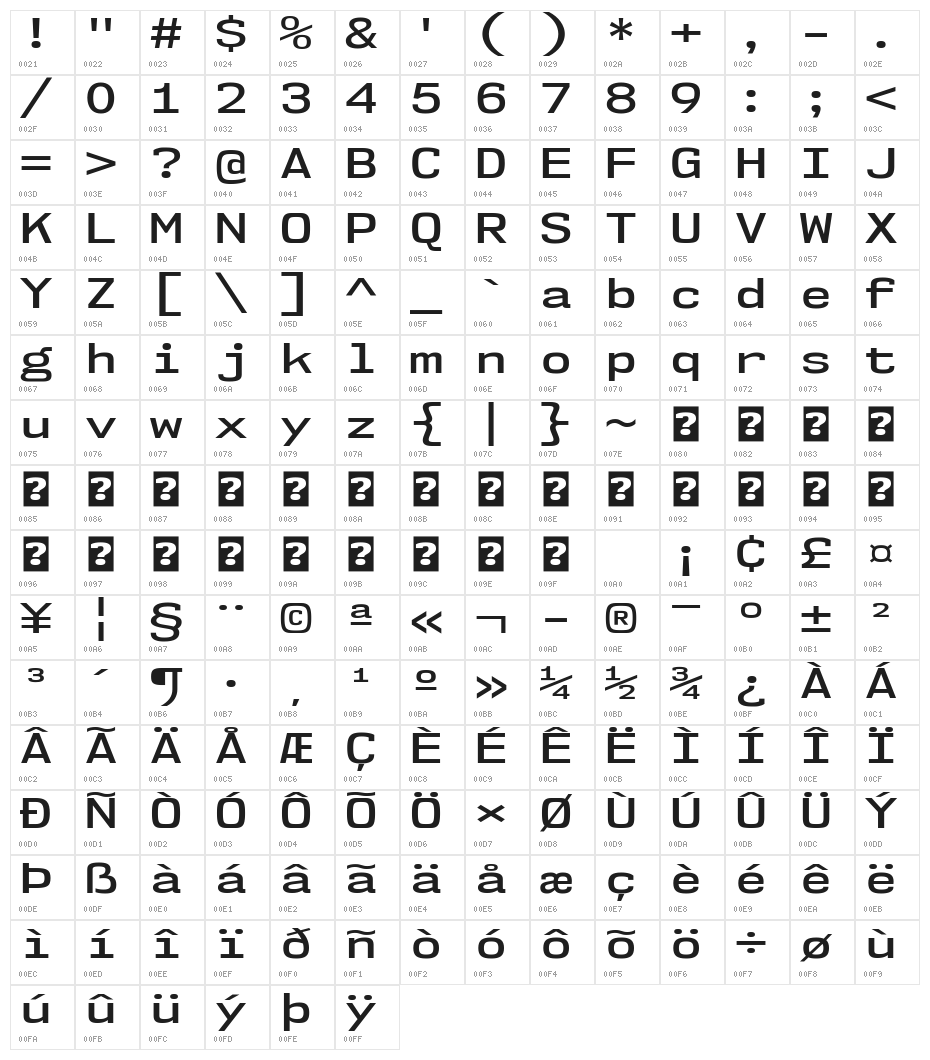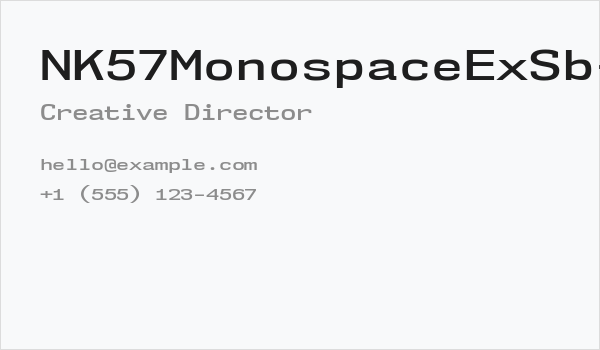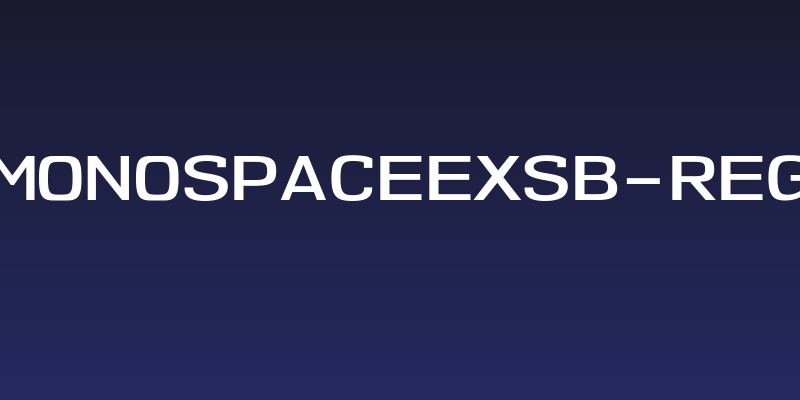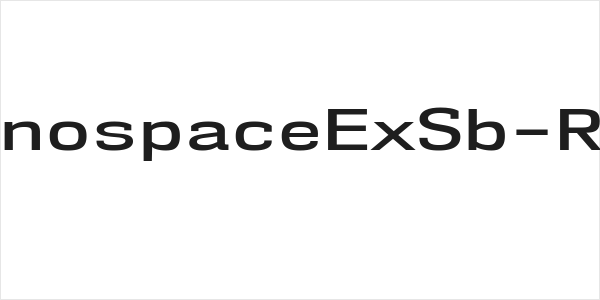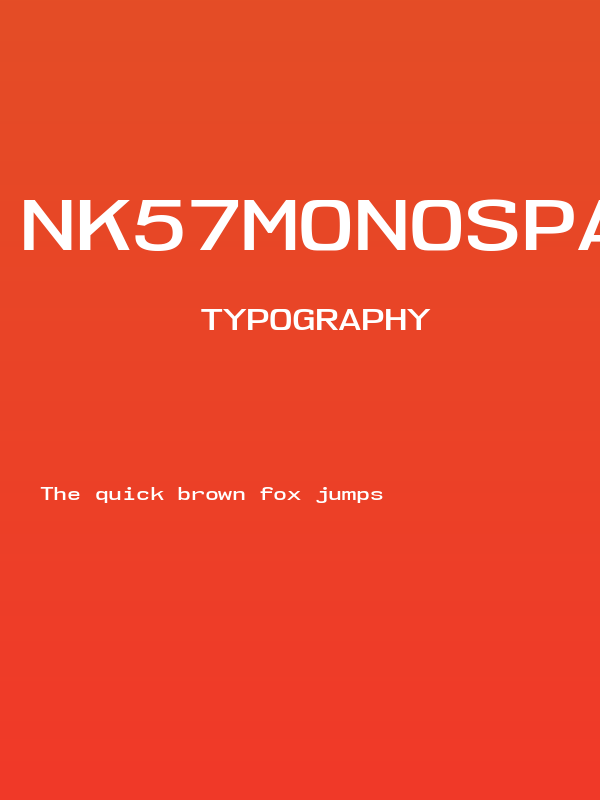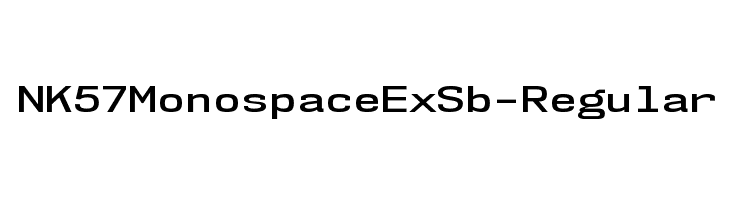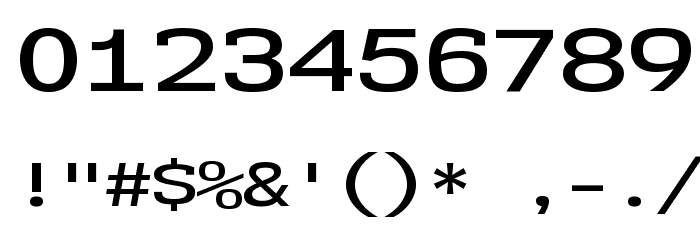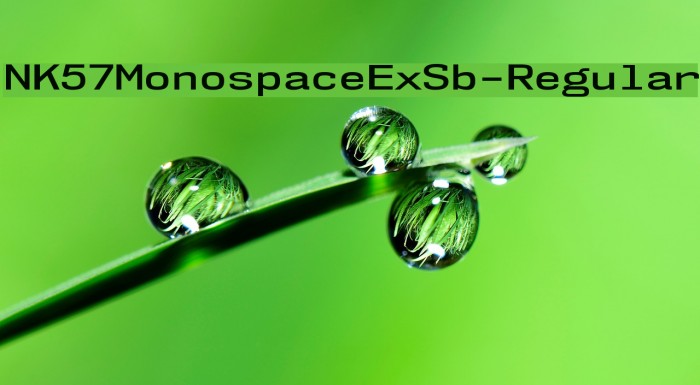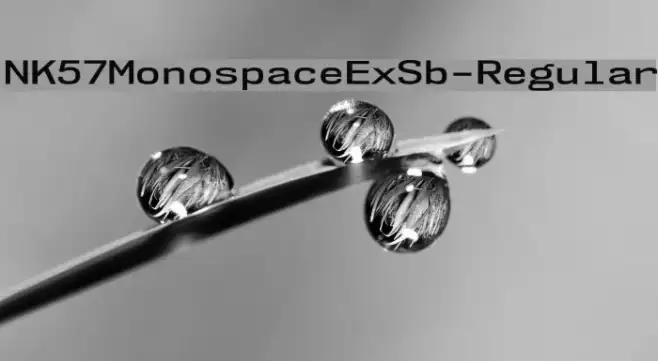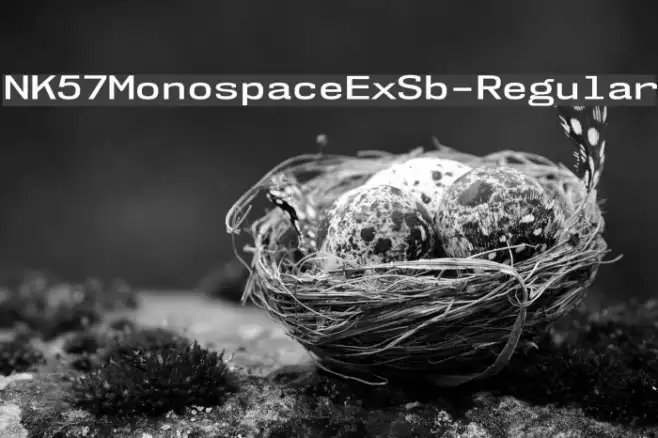
NK57MonospaceExSb-Regular Font
NK57MonospaceExSb-Regular Description
This font features a clean, structured design with uniform character width, characteristic of monospaced fonts. Each letter and number is distinctly separated, providing clarity and readability. The strokes are consistent in thickness, offering a balanced appearance. The uppercase letters are bold and assertive, while the lowercase letters maintain a similar weight, ensuring uniformity across text. The numerals are straightforward and easy to distinguish, making them ideal for coding or tabular data. Special characters are clearly defined, enhancing the font's utility in various contexts.
| Use Case | Coding, Technical documentation, Data tables |
| Proposed Projects | Ideal for coding environments, technical documentation, data tables, and any project requiring precise alignment. |